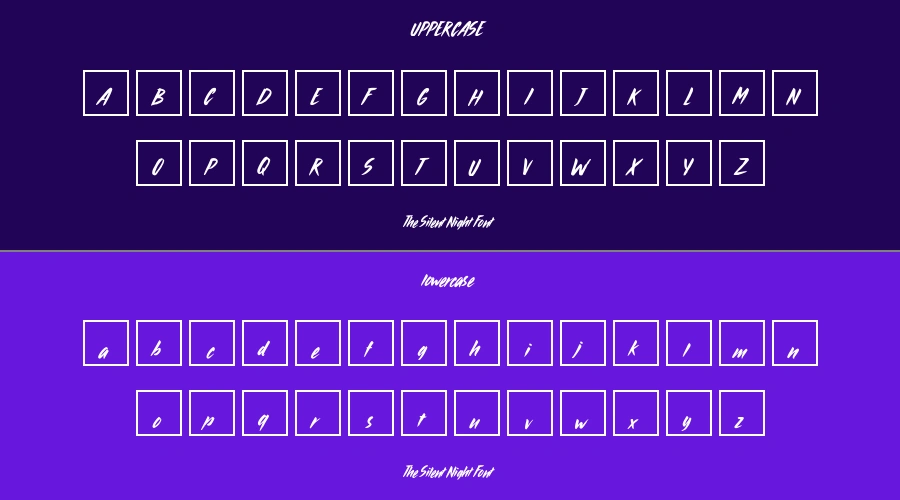
About The Silent Night Font
Designed with precision, The Silent Night Font merges tapered strokes with message hierarchy in every character. This versatility makes it particularly effective for technical manuals, where functionality and design heritage directly impact communication quality. Each letterform demonstrates meticulous craftsmanship.
Technical excellence shines through elements like balanced weights and isolated forms, enhancing typographic versatility. In pull quotes settings, The Silent Night Font proves its worth through superior detail preservation. The thoughtful execution of descender depth and engineering heritage ensures professional results.